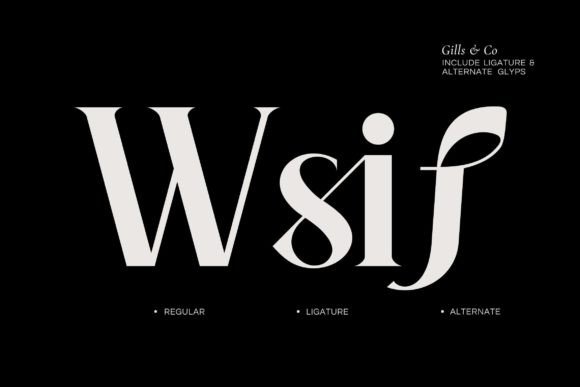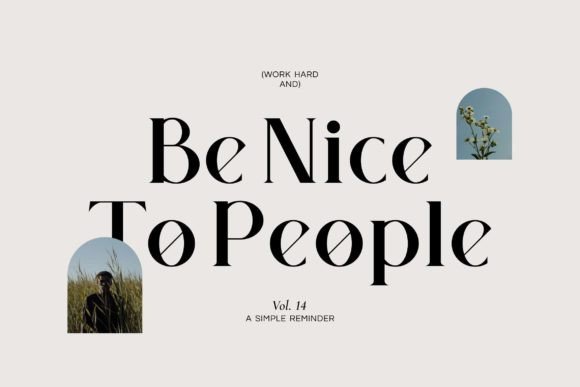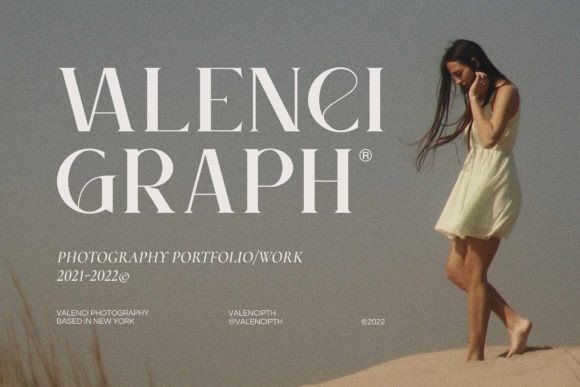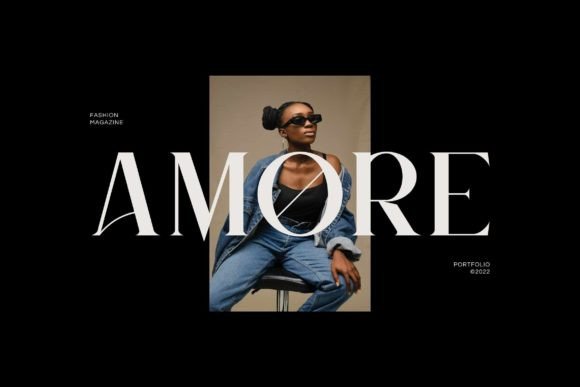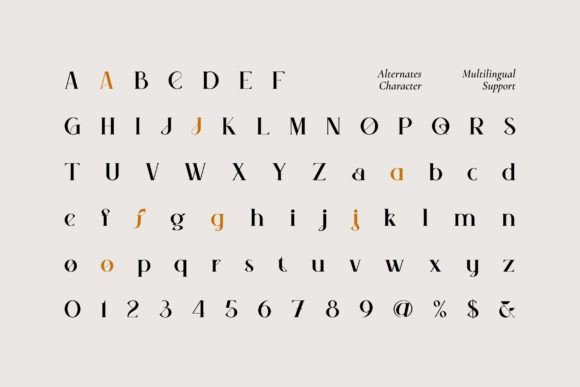
Gills & Co Font: Elevate Your Design with Modern Elegance
In the realm of typography, a font can make all the difference in the aesthetic and effectiveness of a design project. For designers and crafters seeking a modern, luxurious, and clean style, Gills & Co Font stands out as an exceptional choice. This modern display font, equipped with alternatives and ligatures, is designed to bring a touch of sophistication to a wide array of projects, from stunning logos and quotes to posts, blog posts, branding projects, and magazine imagery.
Modern and Minimal Look
Gills & Co Font boasts a modern and minimal design that appeals to those who appreciate clean lines and simplicity. Its uncluttered appearance ensures that the focus remains on the content, making it perfect for designers who aim to convey elegance and luxury through their work. The minimalist approach of Gills & Co allows it to seamlessly integrate into various design contexts, providing a versatile tool for creative professionals.
One of the key features that set Gills & Co apart is its PUA (Private Use Area) encoding. This means that users can access all the amazing glyphs and ligatures with ease, enhancing the font’s usability and creative potential. PUA encoding allows designers to unlock the full spectrum of the font’s capabilities, making it straightforward to incorporate the desired typographic elements into their projects.
Ligatures and Alternatives for Creative Freedom
The inclusion of ligatures and alternatives in Gills & Co Font provides designers with a high degree of creative freedom. Ligatures, which are special character combinations that form a single glyph, can add a unique touch to any text, making it more visually appealing. The alternatives offered by Gills & Co allow for further customization, enabling designers to experiment with different styles and find the perfect fit for their projects.
Applications of Gills & Co Font
The versatility of Gills & Co Font makes it suitable for a broad range of applications. Here are some of the areas where this font truly shines:
- Logos: The modern and luxurious feel of Gills & Co makes it an excellent choice for logos that aim to convey sophistication and elegance.
- Quotes and Posts: Adding a touch of class to quotes and social media posts can significantly enhance their impact. Gills & Co Font is perfect for creating visually appealing and engaging content.
- Blog Posts: For bloggers looking to elevate the typography of their content, Gills & Co offers a stylish and readable solution.
- Branding Projects: Consistency in branding is crucial, and using a distinctive font like Gills & Co can help establish a strong visual identity.
- Magazine Imagery: The clean and modern look of Gills & Co Font makes it suitable for use in magazine layouts, adding a professional touch to articles and features.
Why Choose Gills & Co Font?
Choosing Gills & Co Font for your design projects comes with several benefits:
- Unique Aesthetic: The font’s modern and minimal design ensures that your projects stand out with a unique aesthetic.
- High Versatility: Suitable for a wide range of projects, from digital content to print materials.
- Easy to Use: PUA encoding makes it easy to access and use the font’s extensive features.
- Customization: With ligatures and alternatives, designers have ample opportunities for customization.
Gills & Co Font is a powerful tool for designers and crafters aiming to infuse their projects with a modern, luxurious feel. Its clean design, coupled with the practicality of PUA encoding and the creative potential of ligatures and alternatives, makes it a valuable asset for any creative professional. Whether you’re working on logos, blog posts, or branding projects, Gills & Co Font offers the elegance and versatility needed to elevate your designs.
By incorporating Gills & Co into your typography arsenal, you’re not just choosing a font; you’re embracing a design philosophy that values simplicity, elegance, and creativity. Experience the difference that a well-crafted font can make in your projects and discover how Gills & Co can help you achieve your design goals.